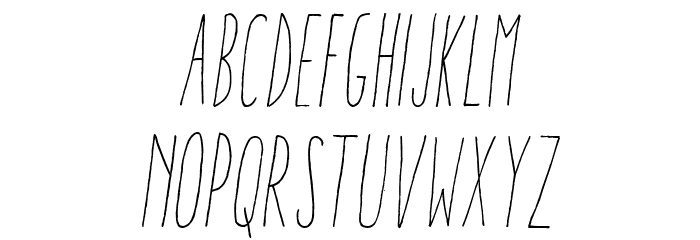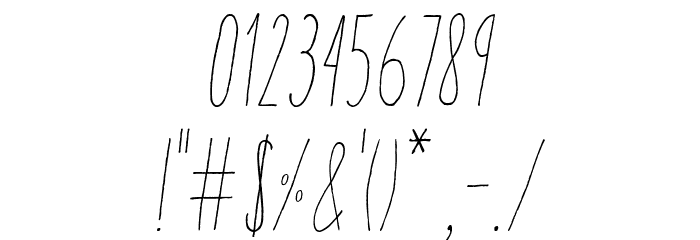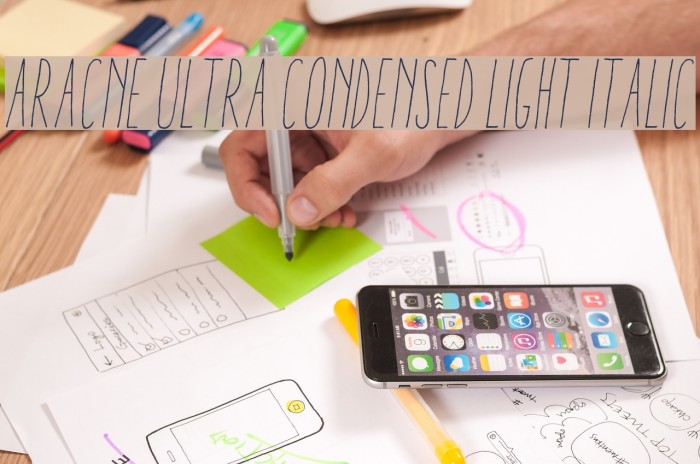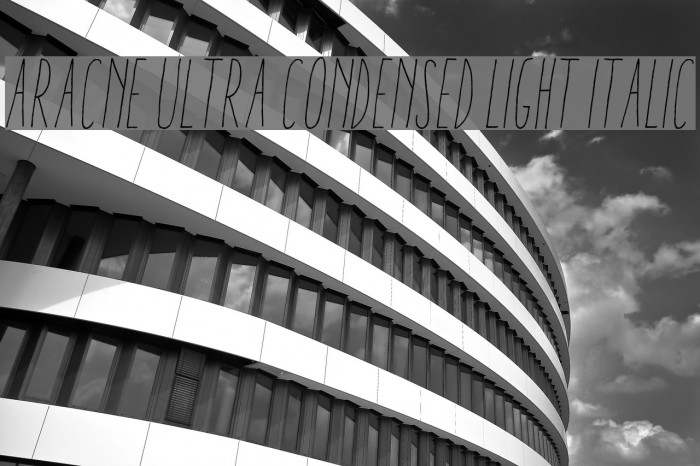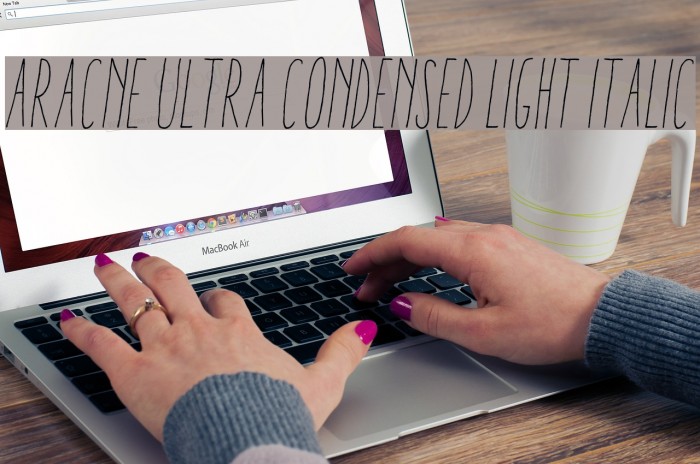
Aracne Ultra Condensed Light Italic Font
This font features an ultra-condensed and light design with an italic slant, giving it a sleek and modern appearance. The characters are tall and narrow, with a consistent stroke width that maintains a delicate and airy feel. The spacing between characters is tight, enhancing the condensed look. The font's minimalistic style is complemented by its subtle curves and clean lines, making it suitable for contemporary design projects. Its unique structure provides a distinctive and elegant touch, ideal for creative and artistic expressions.
A sleek, ultra-condensed, light italic font with a modern and airy design.
- Font: Aracne Ultra Condensed Light Italic
by antipixel - Weight: Ultra-condensed Light Italic
- Proposed Projects: Ideal for fashion magazines, modern branding, artistic posters, and minimalist web design.
- Character Spacing: Tight
- Use Case: Headlines, Logos, Artistic projects